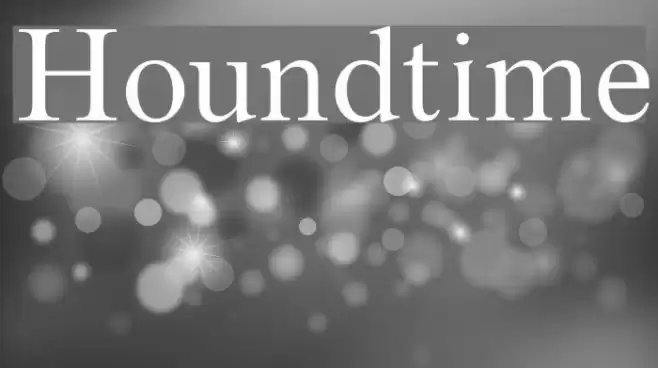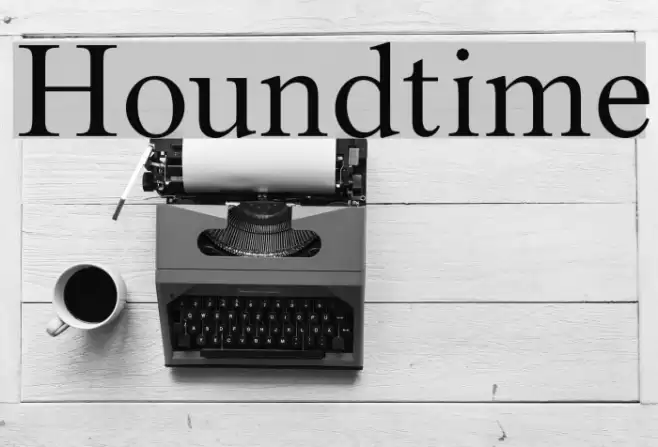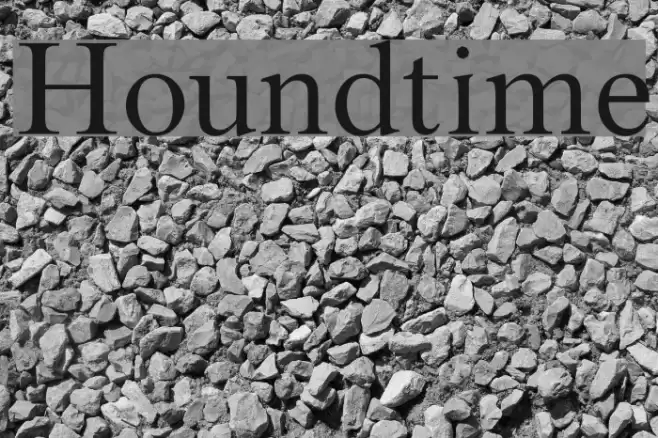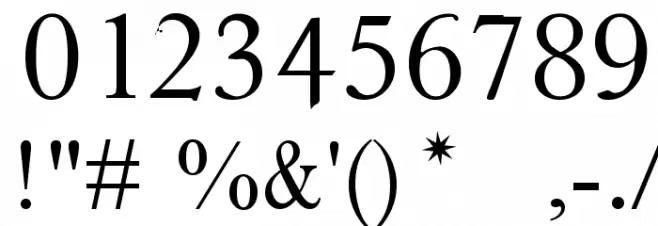
Houndtime Font
Houndtime Description
This font features a classic serif style with elegant and refined strokes. The uppercase letters are bold and commanding, while the lowercase letters maintain a graceful and fluid form. The numerals are clear and distinct, making them easily readable. Special characters are crafted with precision, adding to the font's versatility. The overall design exudes a timeless sophistication, suitable for a variety of formal and professional applications.
A classic serif font with elegant strokes and timeless sophistication from Typewriter fonts.
- Proposed Projects: Ideal for book covers, formal invitations, branding for luxury products, and editorial design.
- Contrast: High
- Overall Style: Classic
- Use Case: Headlines, Body text, Logos